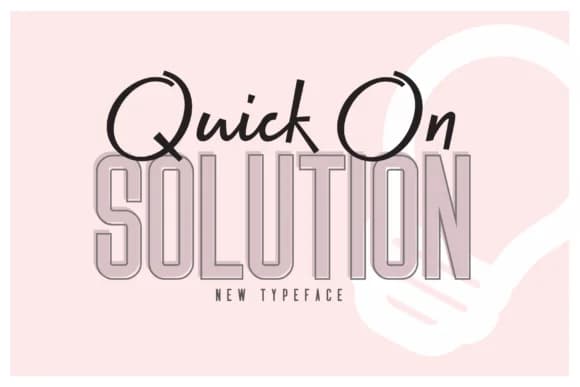
Moraless & Solution by eyetype2000 is a versatile dual-font collection that pairs organic handwritten charm with contemporary geometric precision. The Moraless typeface delivers authentic script letterforms with natural, flowing characteristics that work beautifully in refined applications, while Solution provides striking visual strength with its bold, distinctive forms that anchor any layout with authority. Together, they create immediate design flexibility within a single downloadable package, allowing designers to layer warmth with strong visual impact and balance delicate typographic moments against confident, commanding declarations.
This pairing excels for wedding invitation suites, where Moraless can render romantic text and delicate details while Solution headlines command attention and visual presence. The collection proves equally valuable for boutique cosmetics packaging, independent book covers, and beautifully handmade product labels where customers seek authenticity merged with professional sophistication. Greeting card compositions, small-batch branding projects, and specialty stationery all benefit from the dynamic interplay between these two distinct typographic personalities. Both typefaces arrive with extended character support, ensuring reliable global language performance across varied applications, whether you're setting intimate body copy or crafting compelling display-sized headlines that naturally command notice.
Moraless & Solution Font is a script font that shines as a display or heading face. Pair it with a clean sans-serif or serif font for body text β the contrast creates a clear hierarchy while the two styles stay balanced and easy to read.